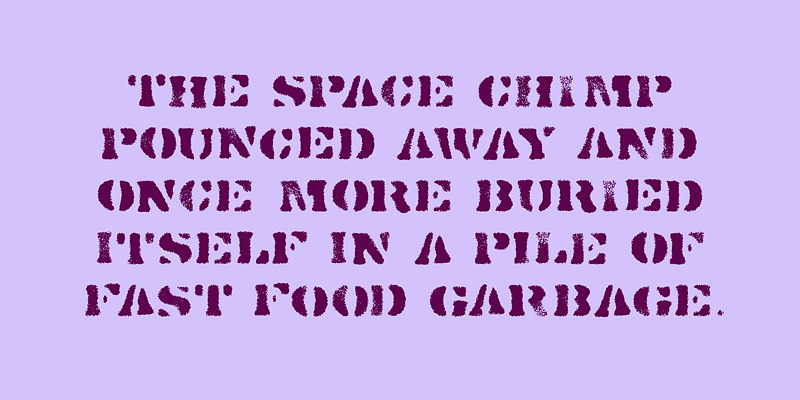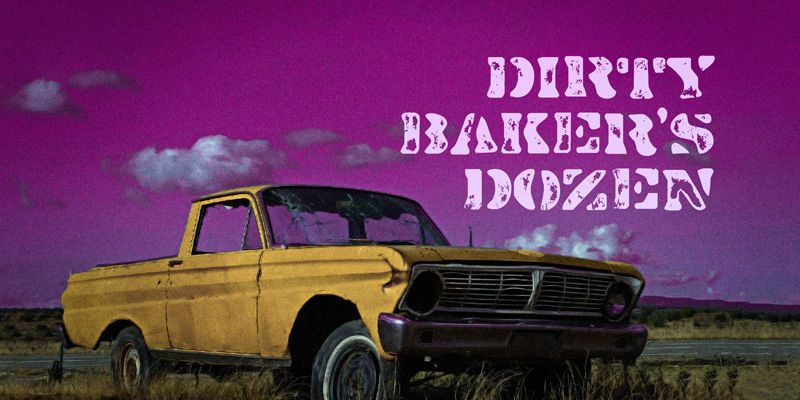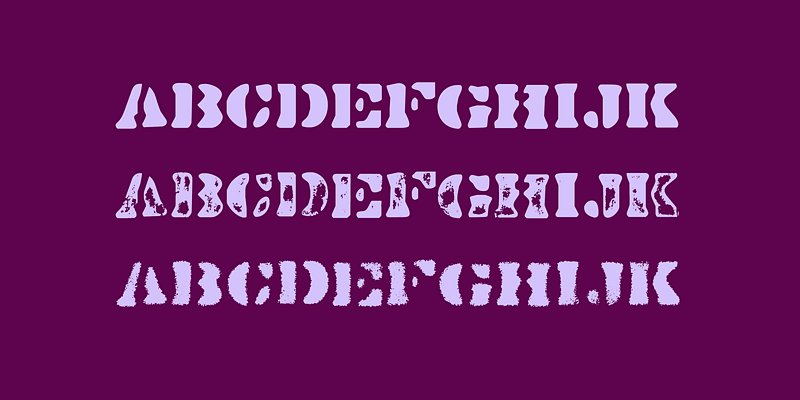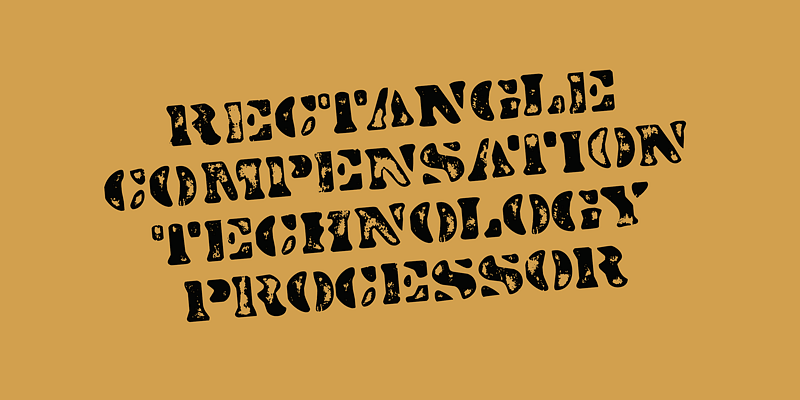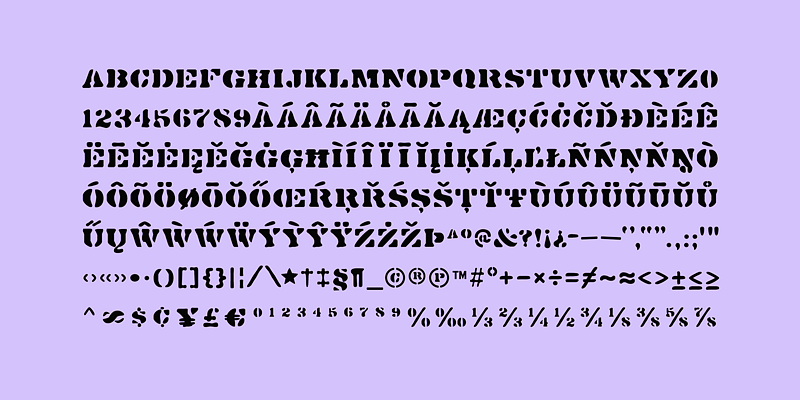
Dirty Baker’s Dozen starts with a blunt, all-caps stencil and lets the surface deteriorate. Regular holds the construction together; Scorch breaks it apart; Spraypaint gives it a rough painted finish. Those related states are useful when an identity has to appear in both designed graphics and a fictional physical environment. A game or film can use the clearer stencil for a title or faction name, then take the same forms onto battered crates, bunker walls, and temporary signs. The range also works for music merchandise, action-sports events, and industrial-themed packaging. The damaged styles work best at a scale that lets the surface changes show.